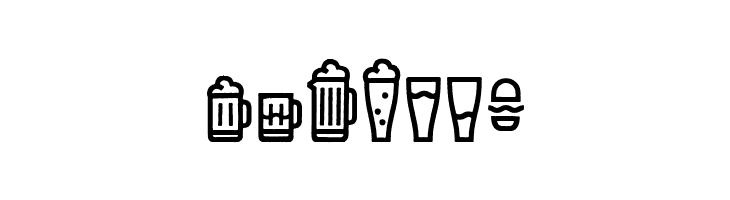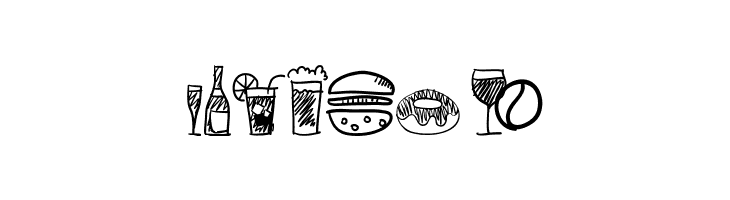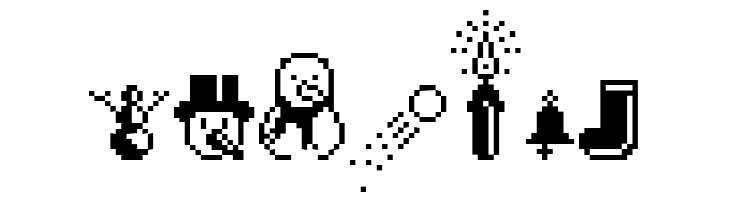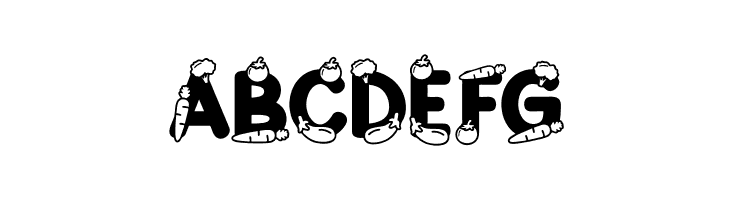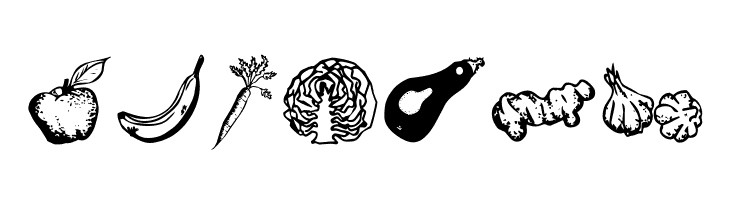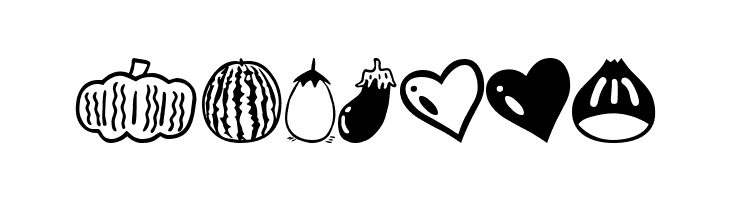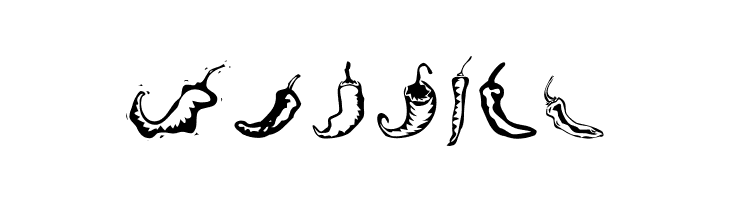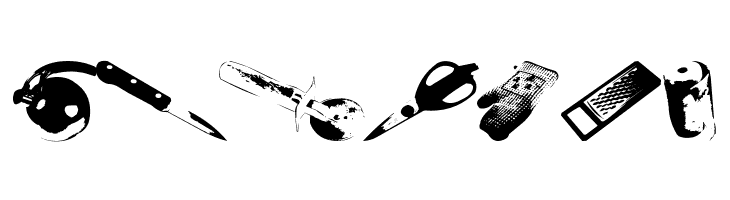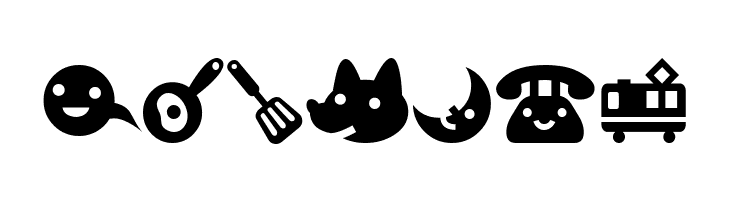
A clean, modern font with a slight vintage touch, featuring consistent stroke width and versatile characters.
A playful and artistic font with eclectic curves and bold strokes.
Urban, graffiti-inspired dingbat font with city and fast food motifs.
A playful font made entirely of fruit illustrations, perfect for creative projects.
A playful font with chef-themed decorations on each character.
A bold, playful font with chef hats atop each character, perfect for culinary themes.
Hand-drawn, bold icon set with a playful and casual style.
A playful and whimsical set of hand-drawn doodles featuring food, drinks, and charming symbols.
A playful, grapevine-themed decorative font with bold, rounded characters.
A playful, sausage-themed decorative font with a whimsical design.
A playful, vegetable-themed decorative font with bold, quirky characters.
A playful, cheese-inspired font with bold, rounded letters and fun details.
A playful, sausage-themed decorative font with bold, cartoonish characters.
A playful, apple-shaped decorative font with bold, rounded characters.
A playful, bold font with rounded, dripping characters.
Hand-drawn produce illustrations replace letters and numbers.
A display font composed of detailed fish illustrations for each character.